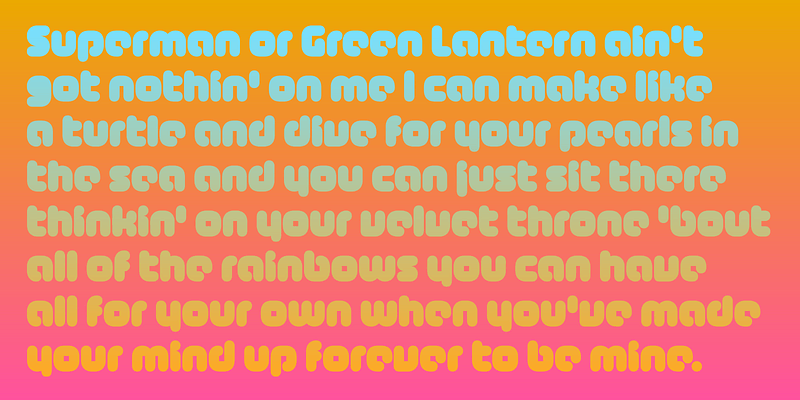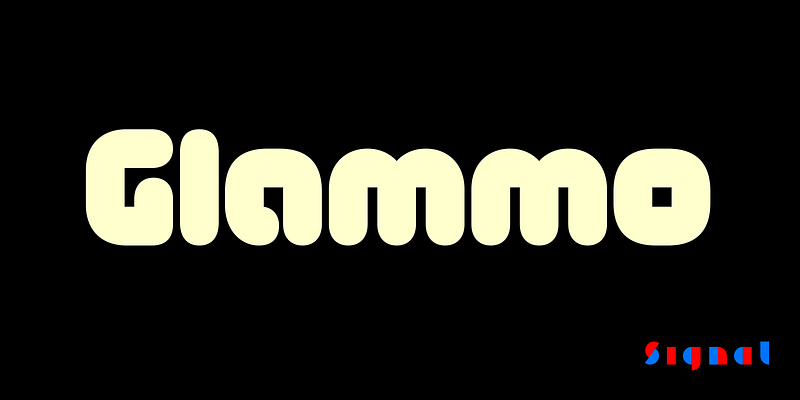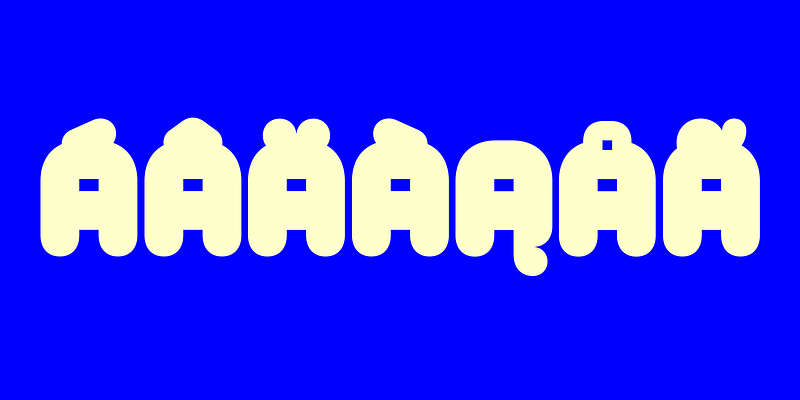
Originally designed for the Dublin Bowie Festival, Glammo is a modular, grid-based, retrofuturistic typeface that blends references to techno, AKIRA, and the Designers Republic to convey a air of sleek modernity gone badly wrong. Inspired by 90s culture (Black Tie White Noise) but with faintly psychedelic roots, its bold shapes are best used in short, high-impact bursts.